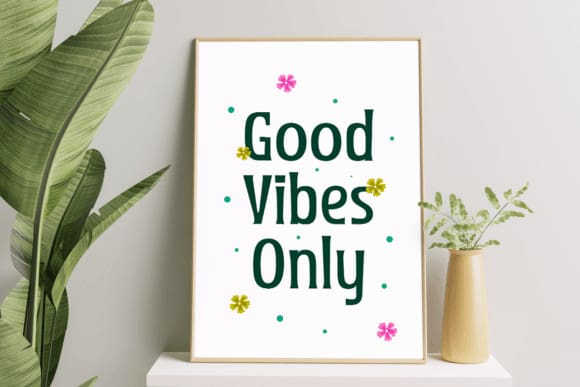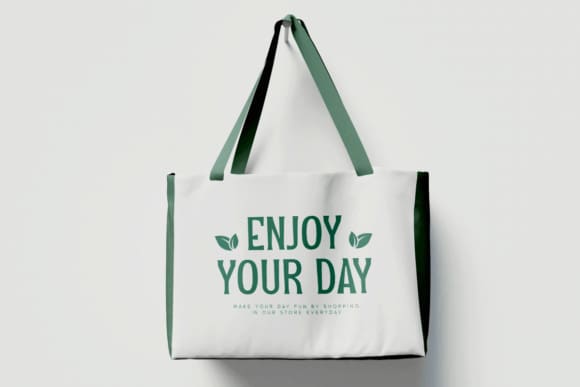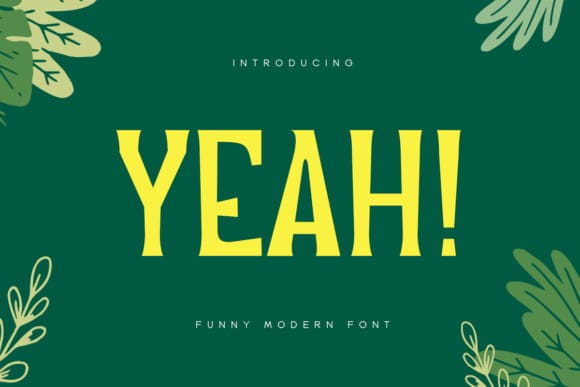
Yeah Serif Font
Yeah Serif Font, is an elegant and bold serif font. Fall in love with its incredibly versatile style and use it to create gorgeous wedding invitations, beautiful stationary art, eye-catching social media posts, and much more!